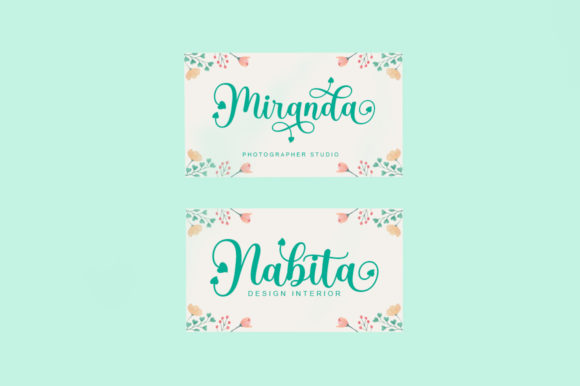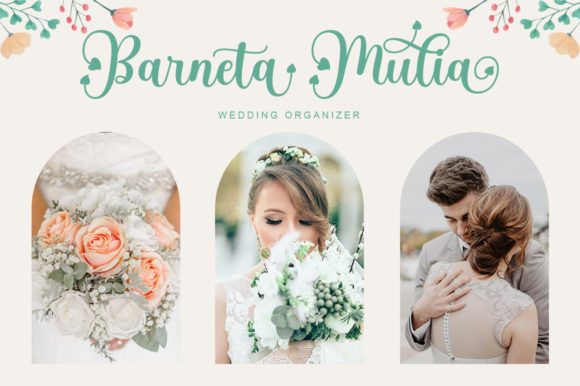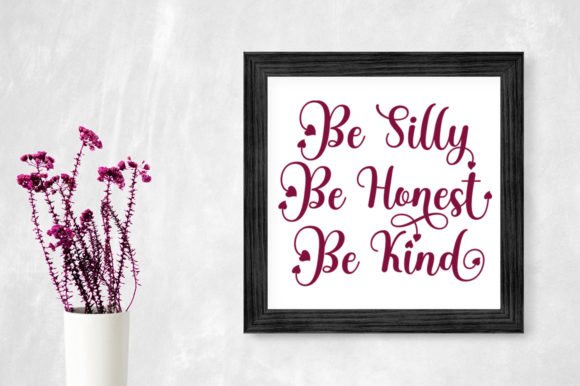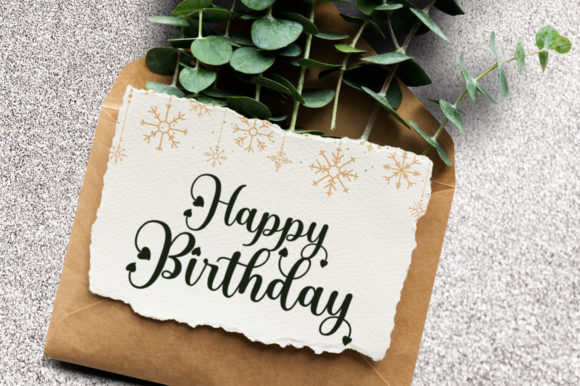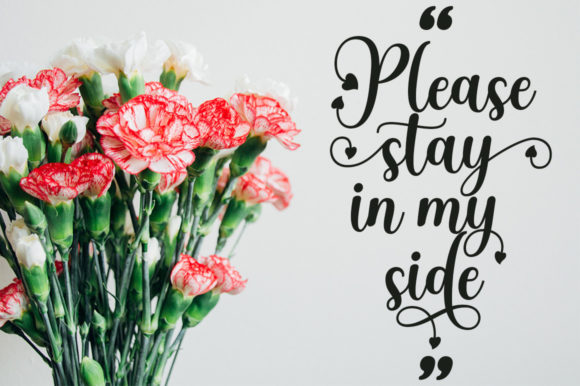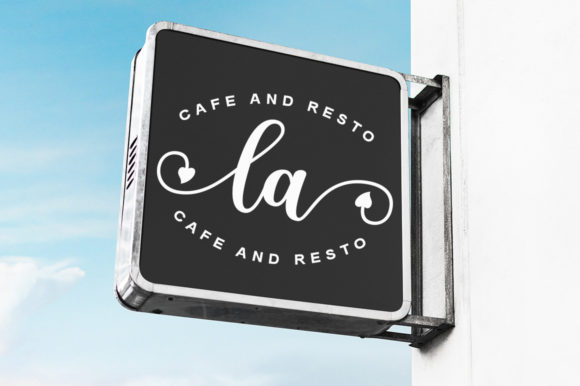
Introducing Beulagak Script Font: Elevate Your Designs with Elegance and Whimsy
In the world of typography, a font can make all the difference in transforming a design from ordinary to extraordinary. For designers and crafters seeking a unique and elegant handwritten script, look no further than the Beulagak Script Font. This charming font is meticulously crafted to bring a touch of sophistication and playfulness to any project, making it a must-have for creatives aiming to leave a lasting impression.
The Charm of Beulagak Script
Beulagak Script is not just another font; it’s a creative tool designed to unlock the full potential of your designs. Its cute, elegant, and unique handwritten style effortlessly captures the essence of whimsical elegance, making it perfect for a wide range of projects. Whether you’re working on wedding invitations, branding materials, packaging, or digital content, Beulagak Script Font adds that special flair that sets your work apart.
Expertly Designed for Versatility
What makes Beulagak Script truly stand out is its expert design, tailored to cater to the needs of modern creatives. The font’s versatility is one of its strongest assets, allowing it to be used in various contexts without losing its charm. From romantic and feminine themes to more playful and quirky designs, Beulagak Script adapts seamlessly, ensuring your creative ideas are conveyed with the highest level of elegance and sophistication.
PUA Encoded for Ease of Use
Understanding the importance of convenience and efficiency in the design process, Beulagak Script Font comes PUA (Private Use Area) encoded. This feature is a game-changer for designers, as it provides easy access to all glyphs and sweeps. With PUA encoding, you can effortlessly navigate through the font’s extensive character set, including alternates, ligatures, and decorative swashes, making the design process smoother and more enjoyable.
Applications for Designers and Crafters
The applications of Beulagak Script Font are vast and varied, catering to the diverse needs of designers and crafters. Here are a few ways you can leverage this beautiful font:
- Wedding and Event Stationery: Create stunning wedding invitations, save-the-date cards, and event banners that exude elegance and romance.
- Branding and Packaging: Elevate your brand’s visual identity with custom packaging, logos, and marketing materials that showcase a unique and sophisticated aesthetic.
- Digital Content: Enhance your blog, website, or social media graphics with eye-catching typography that engages and captivates your audience.
- Crafting and DIY Projects: Add a personal touch to your handmade crafts, such as journals, planners, and art pieces, with the font’s charming and whimsical feel.
Why Choose Beulagak Script Font?
With an abundance of fonts available, why should Beulagak Script be your go-to choice? The answer lies in its perfect blend of elegance, uniqueness, and usability. This font is not just a typeface; it’s a design companion that inspires creativity and enhances your work. Its ability to convey emotion and add a personal touch to your designs makes it an invaluable asset in your creative toolkit.
Beulagak Script Font is more than just a font; it’s a gateway to unlocking the full potential of your creative projects. With its elegant and whimsical design, PUA encoding for ease of use, and versatility across various applications, it’s an essential resource for designers and crafters aiming to make a statement. Whether you’re looking to add a touch of sophistication, whimsy, or elegance to your work, Beulagak Script Font is the perfect choice. Elevate your designs to new heights with this beautiful, unique, and highly versatile script font.